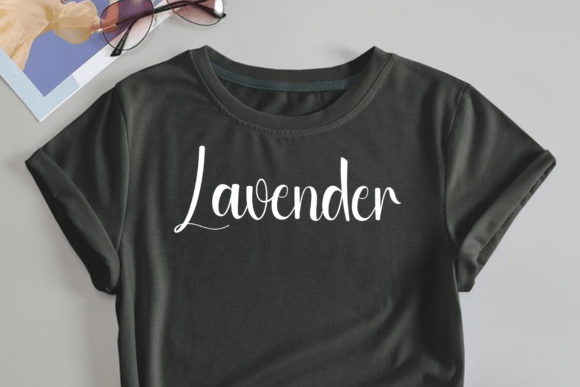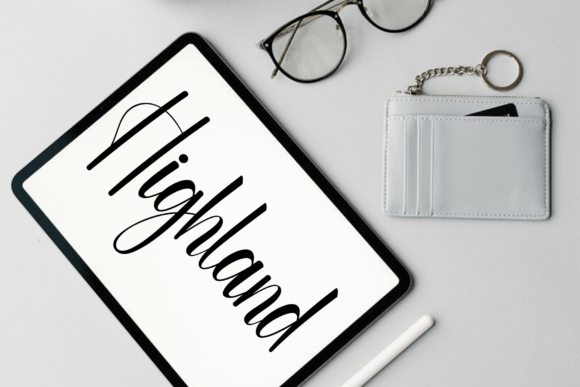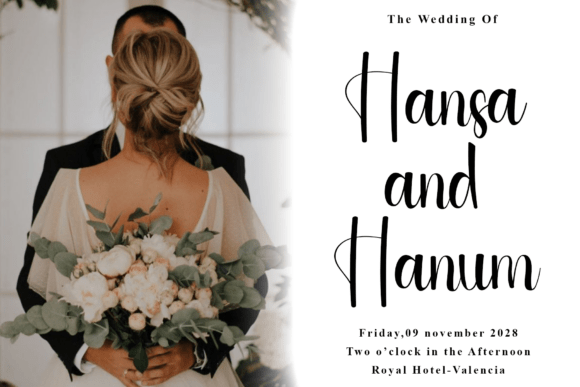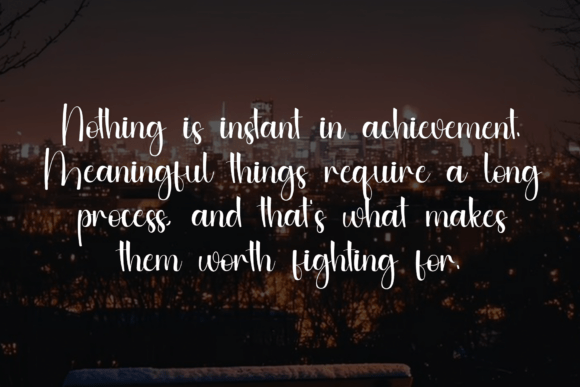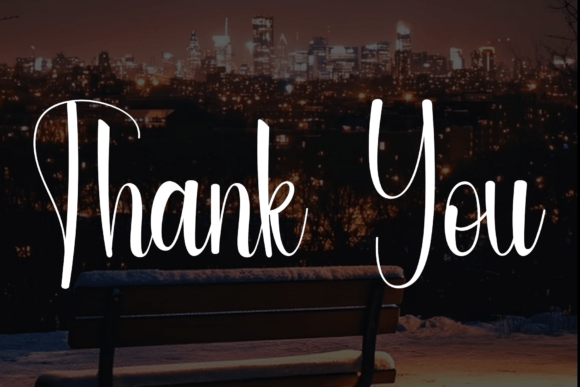
Discover the Elegance of Citylights Font: A Modern Handwritten Marvel
In the realm of typography, few fonts manage to capture the essence of modern elegance while conveying a sense of approachability. Citylights Font, a recent addition to the modern handwritten collection, stands out as a beacon of sophistication and clarity. This unique font is designed to evoke a sense of freshness and crisp elegance, making it an ideal choice for designers and crafters looking to elevate their projects.
The Distinctive Features of Citylights Font
Citylights Font boasts tall, thin strokes that lend it an air of refinement and poise. Its subtle, airy slant adds a dynamic touch, imbuing the font with a sense of movement and fluidity. This distinctive combination of features results in a refined aesthetic that feels as invigorating as a mountain breeze. Whether you’re working on travel photography, branding for outdoor gear, or sophisticated web design, Citylights Font offers a clean and approachable style that is sure to captivate your audience.
Ideal Applications for Citylights Font
The versatility of Citylights Font makes it suitable for a wide range of applications. Here are a few areas where this font truly shines:
- Travel Photography: The font’s elegant and airy feel makes it a perfect match for travel photography, where capturing the essence of a destination is paramount. Citylights Font can be used to add titles or captions to your photos, enhancing the overall visual narrative.
- Outdoor Gear Branding: For brands that specialize in outdoor gear, Citylights Font offers a sophisticated and modern look that aligns well with the outdoorsy vibe. Its clean lines and subtle slant convey a sense of adventure and reliability, making it an excellent choice for logos, packaging, and marketing materials.
- Sophisticated Web Design: In the digital realm, Citylights Font can be used to create visually appealing and user-friendly websites. Its readability and elegance make it suitable for headings, subheadings, and even body text, ensuring a cohesive and professional look.
Why Designers and Crafters Love Citylights Font
Designers and crafters are often on the lookout for fonts that can help their projects stand out. Citylights Font offers several advantages that make it a favorite among creative professionals:
- Unique and Professional: Citylights Font brings a unique and professional touch to any project. Its modern handwritten style sets it apart from more traditional fonts, allowing designers to create distinctive and memorable visuals.
- Versatility: The font’s versatility means it can be used across various mediums, from print to digital. Whether you’re working on a brochure, a website, or social media graphics, Citylights Font adapts seamlessly.
- Ease of Use: Citylights Font is designed to be user-friendly. Its clear and crisp strokes ensure that it remains legible even at smaller sizes, making it practical for a wide range of applications.
Tips for Maximizing the Impact of Citylights Font
To get the most out of Citylights Font, consider the following tips:
- Pair it with Complementary Fonts: For maximum impact, pair Citylights Font with fonts that complement its style. A combination of serif and sans-serif fonts can create a visually appealing contrast.
- Adjust Line Spacing: To maintain readability, especially in longer texts, adjust the line spacing to ensure that the font’s airy feel is preserved without compromising on clarity.
- Experiment with Colors: Citylights Font looks stunning in a variety of colors. Experiment with different shades to find the one that best suits your project’s theme and aesthetic.
Citylights Font is a remarkable addition to the world of typography, offering a unique blend of elegance, clarity, and approachability. Its tall, thin strokes and subtle slant make it an ideal choice for designers and crafters looking to add a touch of sophistication to their projects. Whether you’re working on travel photography, outdoor gear branding, or sophisticated web design, Citylights Font is sure to leave a lasting impression. Embrace the elegance of Citylights Font and elevate your designs to new heights.